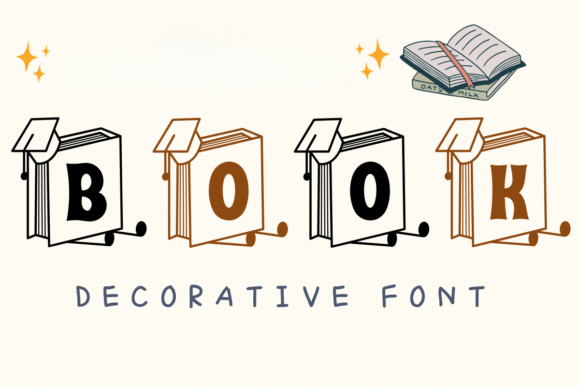
Introducing Book Font: The Playful and Imaginative Decorative Font for Education-Themed Designs
In the world of typography, fonts play a crucial role in conveying the tone and personality of a design. When it comes to creating educational materials, children’s books, or library promotions, a font that captures the essence of learning in a fun and engaging way is essential. This is where Book Font comes in – a playful and imaginative decorative font that is sure to delight audiences of all ages.
The Concept Behind Book Font
Book Font is a unique and creative typeface that features illustrated books wearing graduation caps, cleverly integrated into each letterform. This innovative design concept makes it perfect for school-themed designs, educational materials, children’s books, and library promotions. The font’s bold and structured letterforms ensure that it remains both legible and eye-catching, making it an excellent choice for a wide range of applications.
Key Features of Book Font
- Playful and Imaginative Design: Book Font features illustrated books wearing graduation caps, adding a touch of whimsy and fun to any design.
- Bold and Structured Letterforms: The font’s bold and structured letterforms ensure that it remains legible and eye-catching, even at smaller sizes.
- Perfect for Education-Themed Designs: Book Font is ideal for school-themed designs, educational materials, children’s books, and library promotions.
- Highly Versatile: The font can be used for a wide range of applications, from digital designs to print materials.
Use Cases for Book Font
Book Font is a highly versatile font that can be used for a wide range of applications. Here are some examples of use cases where Book Font would be an excellent choice:
- School-Themed Designs: Book Font is perfect for creating school-themed designs, such as posters, flyers, and brochures.
- Educational Materials: The font is ideal for creating educational materials, such as textbooks, workbooks, and educational posters.
- Children’s Books: Book Font would be an excellent choice for children’s books, adding a touch of fun and whimsy to the story.
- Library Promotions: The font is perfect for creating library promotions, such as posters, flyers, and social media graphics.
Tips for Using Book Font Effectively
To get the most out of Book Font, here are some tips for using it effectively:
- Use it for Headings and Titles: Book Font is perfect for headings and titles, adding a touch of fun and whimsy to your design.
- Pair it with a Simple Font: To create visual interest, pair Book Font with a simple font for body text.
- Experiment with Colors: Book Font looks great in a variety of colors, so don’t be afraid to experiment and find the perfect color scheme for your design.
In conclusion, Book Font is a playful and imaginative decorative font that is perfect for education-themed designs. Its bold and structured letterforms ensure that it remains both legible and eye-catching, making it an excellent choice for a wide range of applications. With its highly versatile design and wide range of use cases, Book Font is sure to delight audiences of all ages.
- What is Book Font?: Book Font is a playful and imaginative decorative font featuring illustrated books wearing graduation caps.
- What is Book Font used for?: Book Font is perfect for school-themed designs, educational materials, children’s books, and library promotions.
- Is Book Font legible?: Yes, Book Font’s bold and structured letterforms ensure that it remains legible and eye-catching.